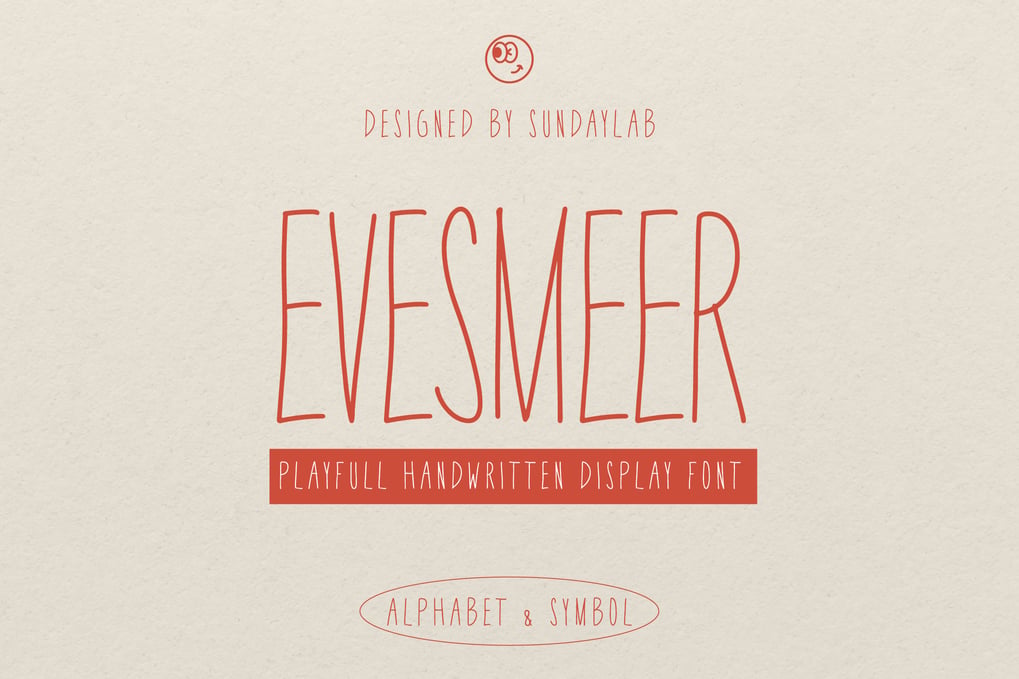
Evesmeer Handwritting Typeface
Evesmeer is a display font that can help display messages in the designs you create. With its playful character, it is suitable for you to use on posters, flyers, magazine covers, books, vinyl, CDs, and many other media.